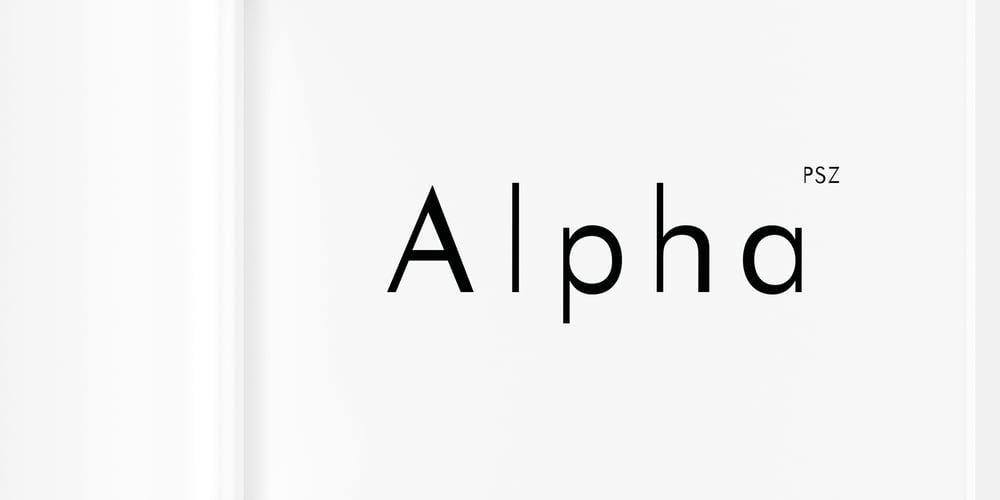
PSZ Alpha Font Family was designed by Patrick Siegfried Zimmer and published by Patrick Siegfried Zimmer. PSZ Alpha contains 2 styles and family package options. PSZ Alpha was designed by Patrick Siegfried Zimmer in 2023.It is a modern typeface designed in a sans serif-grotesque structure and it has been created by taking inspiration from the leading Grotesk fonts that have been designed at the beginning of the 20th century. PSZ Alpha is designed to give results in both screens and editorial designs.